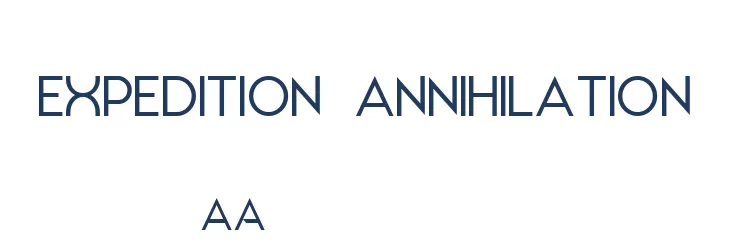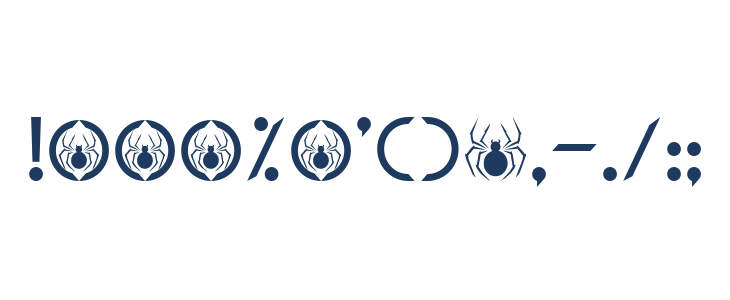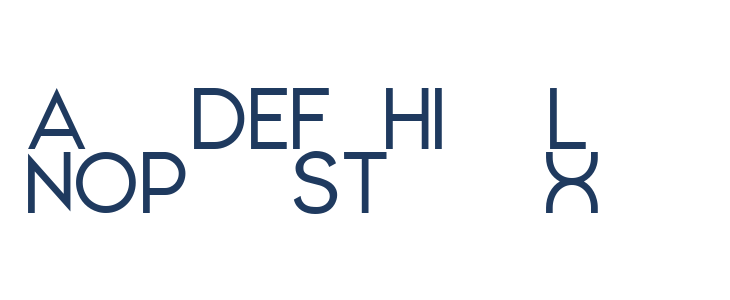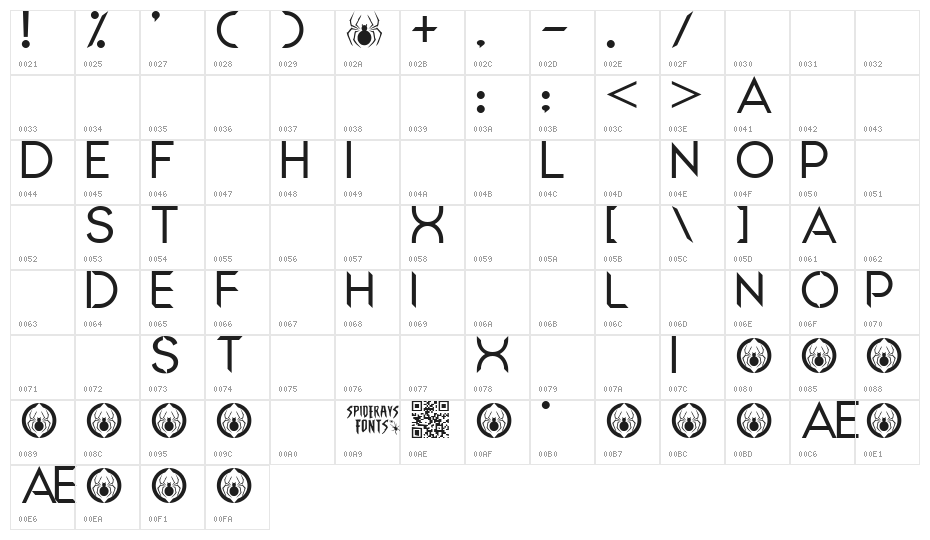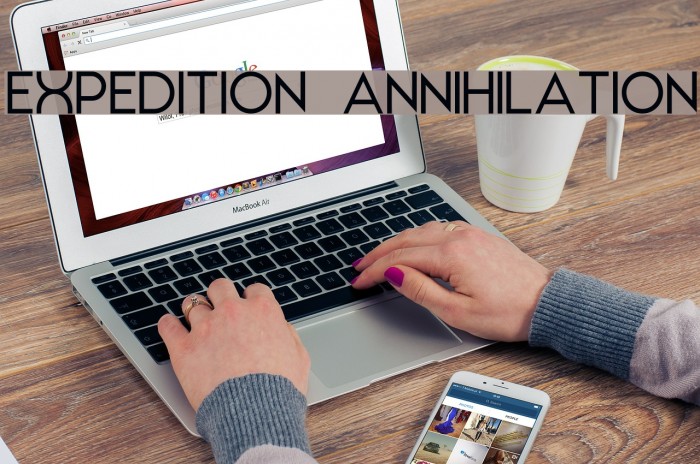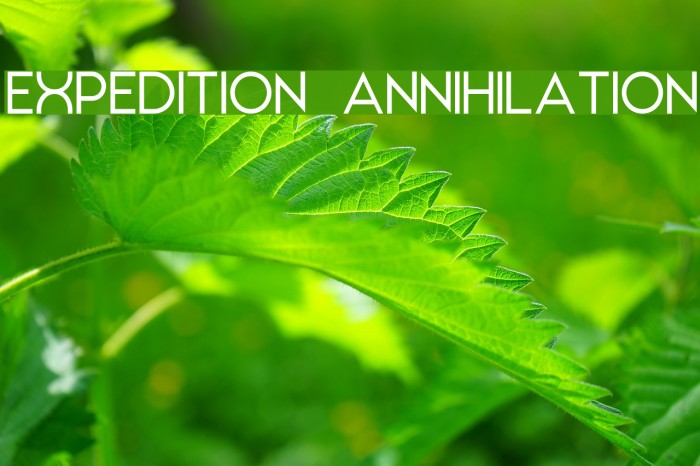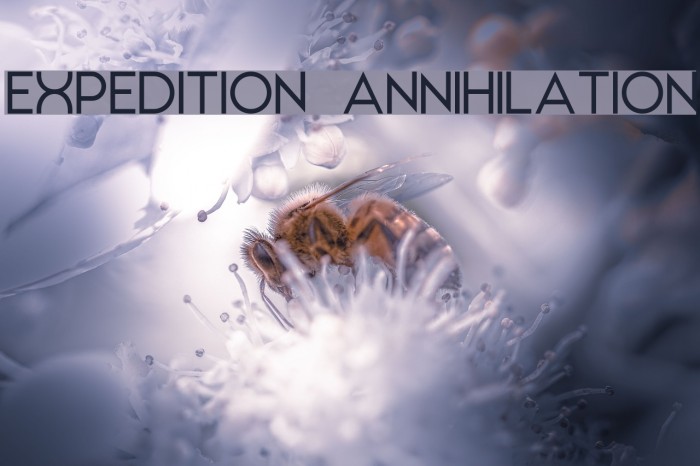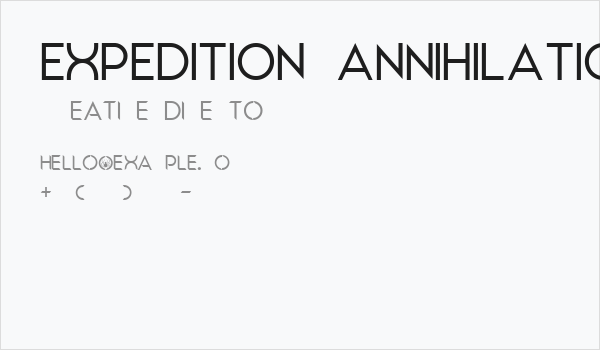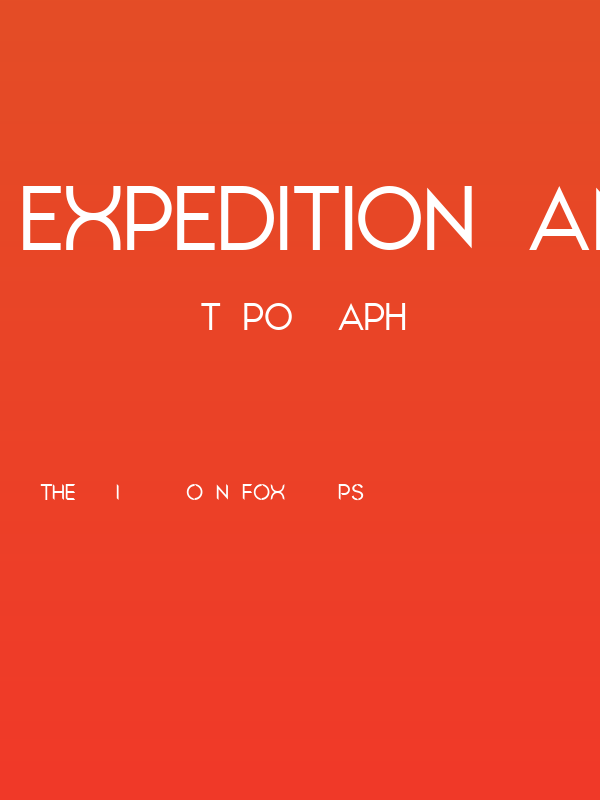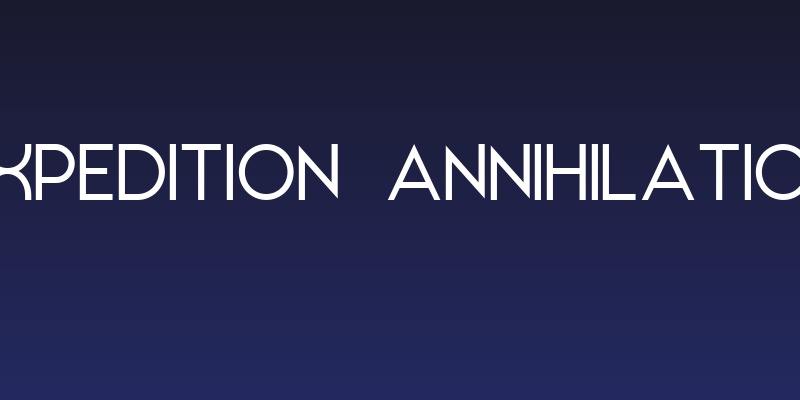
EXPEDITION ANNIHILATION Font
EXPEDITION ANNIHILATION Description
This font features a modern and geometric design with a unique blend of sharp angles and smooth curves. The uppercase letters are bold and striking, with a futuristic aesthetic that is both clean and distinctive. The lowercase letters maintain the same geometric style, creating a cohesive look across all characters. The numbers are designed with the same attention to detail, ensuring readability while maintaining the font's overall style. Special characters, including punctuation and symbols, are crafted to match the font's modern and edgy appearance. The font's design is ideal for projects that require a contemporary and eye-catching typeface.
| Proposed Projects | Ideal for branding, logos, posters, and any project requiring a modern and futuristic look. |